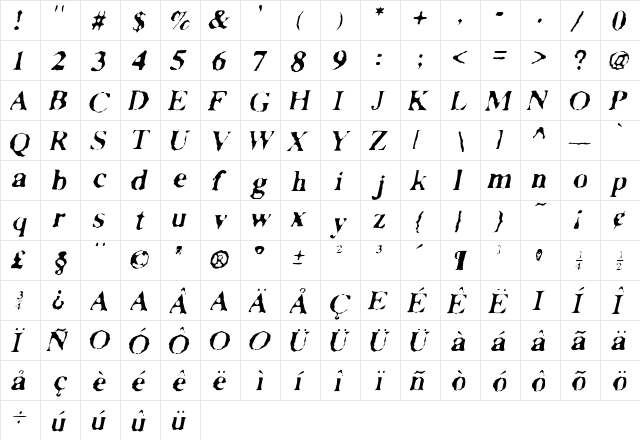
Facsimiled Medium Italic
Design Context for Facsimiled Typeface
Facsimiled is a composed and adaptable typeface that performs quietly and consistently across a wide range of design contexts. The dynamic lean of this cut emphasises speed and emphasis in any layout.
Pro Tip: Use Facsimiled for emphasis, pull quotes, and subheadings where its slanted energy can add rhythm to the layout.